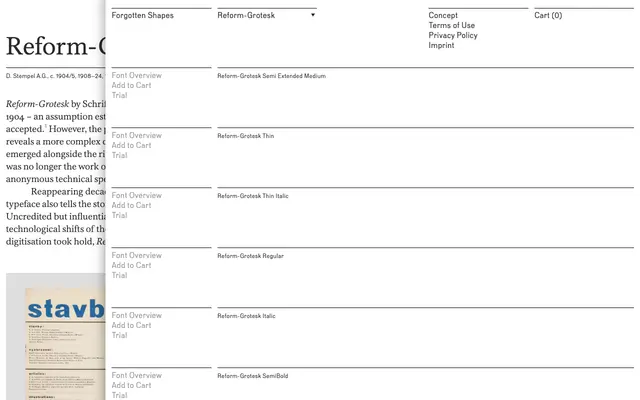
Reform-Grotesk
A scholarly revival of Schriftgießerei D. Stempel's early 20th-century grotesque, researched and digitised by Pierre Pané-Farré across a decade of archival work.
Based on D. Stempel A.G.'s Reform-Grotesk, first produced around 1904 through the foundry's pioneering mechanical punch-cutting processes, this revival also incorporates the typeface's later incarnation as Information. The family spans Thin through Bold with matching italics and a Semi Extended cut, giving it range across both text and display settings. Forgotten Shapes situates the release within a detailed account of early 20th-century German type production, tracing the design through anonymous collaboration, acquisition and formal revision over several decades.
A revival of D. Stempel A.G.'s early 20th-century Reform-Grotesk, a German grotesque of the mechanised type production era; the subcategory follows directly from its historical lineage as a classic German grotesque sans.